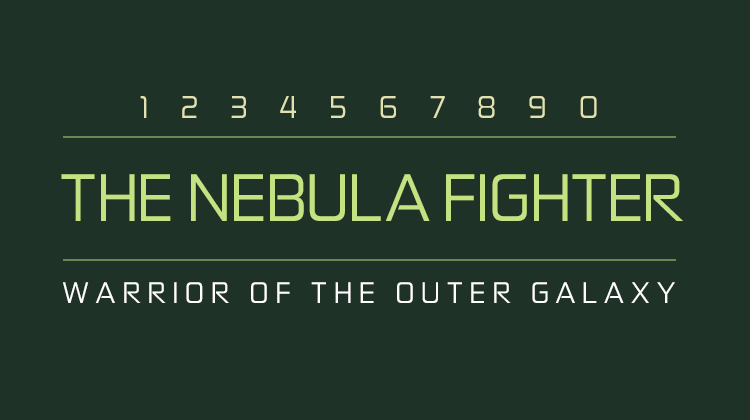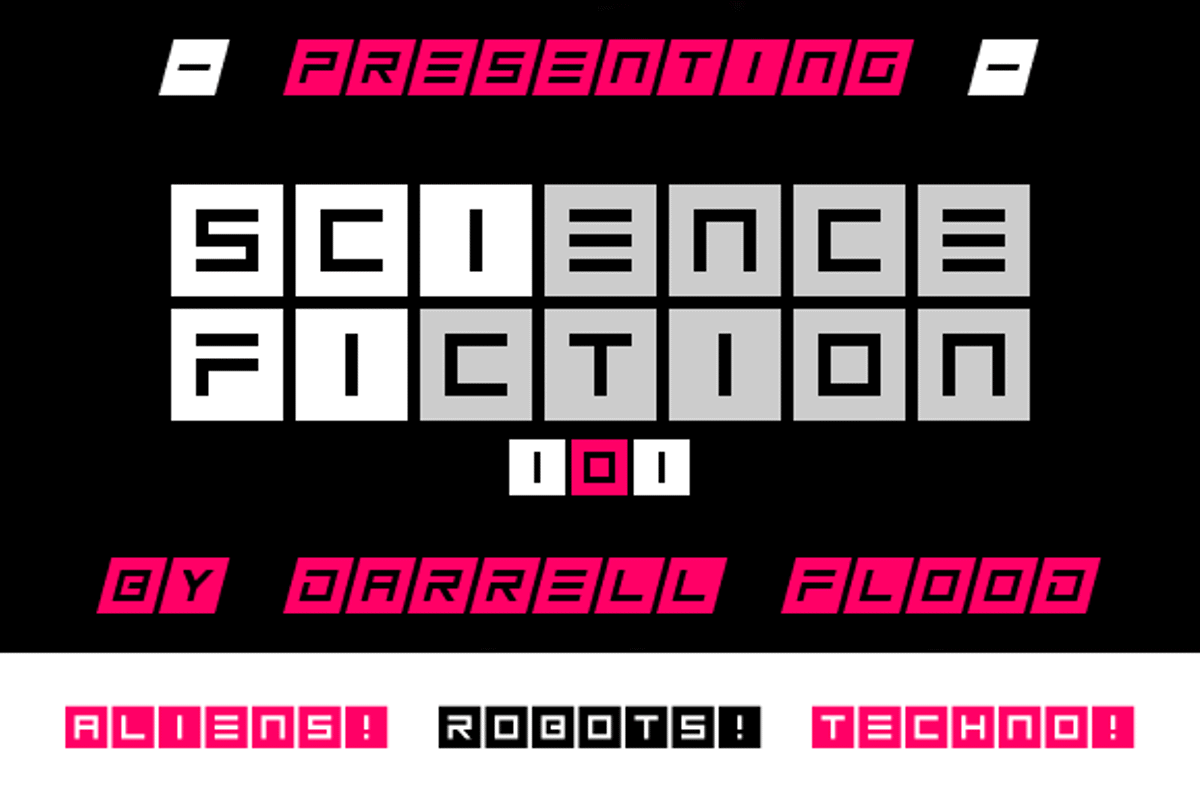
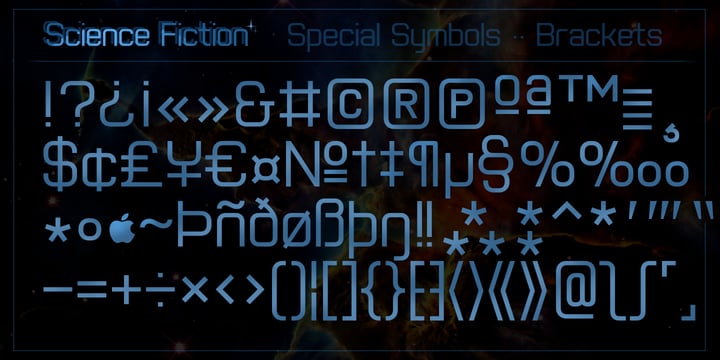
Best Sci-Fi Fonts A Galactic Guide
Best sci fi fonts – Best sci-fi fonts aren’t just about finding letters; they’re about evoking entire worlds. From the sleek, minimalist styles of futuristic utopias to the gritty, distressed looks of dystopian wastelands, the right font can instantly transport your reader to another galaxy. We’ll explore what makes a sci-fi font truly “best,” examining its readability, its ability to create a specific atmosphere, and its overall visual impact.
Get ready for a typographic journey through space and time!
This post dives deep into the world of sci-fi typography, exploring different font categories, their historical influences, and how they’re used in film, video games, and book covers. We’ll even design a conceptual sci-fi font and speculate on the future of this exciting field. Buckle up, font fanatics – it’s going to be a wild ride!
Defining “Best” in Sci-Fi Fonts
Choosing the “best” sci-fi font is subjective, depending heavily on the specific project and desired aesthetic. However, several key criteria can help us evaluate and compare different font choices for science fiction applications. A successful sci-fi font needs to effectively communicate a sense of the future, technology, and the overall tone of the story or project it’s used for.
Criteria for Evaluating Sci-Fi Font Aesthetics
Several factors contribute to a font’s effectiveness in a sci-fi context. Readability remains paramount; even the most futuristic font is useless if it’s difficult to decipher. Beyond readability, a successful sci-fi font should evoke a futuristic feel, conveying a sense of technological advancement and otherworldly environments. The font’s visual impact is crucial; it should be memorable and contribute to the overall atmosphere.
Finally, the font should align with the specific genre conventions and themes of the sci-fi work.
Comparison of Sci-Fi Font Styles
The following table compares three common sci-fi font styles based on the criteria established above. These examples are not exhaustive, but they represent some popular and influential choices.
After all, the right font can make or break the overall aesthetic.
| Font Style | Readability | Futuristic Feel | Technological Impression | Visual Impact |
|---|---|---|---|---|
| Space Mono | High; clean lines and consistent spacing. | Moderate; clean, modern, but not overtly stylized. | High; often used in coding contexts, suggesting a technological feel. | Moderate; clean and functional rather than overtly dramatic. |
| Orbitron | Moderate; rounded forms can be less legible at smaller sizes. | High; geometric shapes and rounded forms evoke a retro-futuristic style. | High; its geometric style suggests advanced technology. | High; bold and distinctive, making a strong visual statement. |
| Anton | Low; very thick strokes and lack of fine details reduce readability, especially in smaller sizes. | High; bold and aggressive, suggesting power and strength. | Moderate; its weight suggests robustness rather than intricate technology. | High; extremely bold and memorable. |
Cultural and Historical Influences on Sci-Fi Font Design
Sci-fi font design isn’t solely about aesthetics; it’s deeply intertwined with cultural and historical trends. For instance, the rise of geometric sans-serif fonts in the mid-20th century mirrored the optimism and technological advancements of the post-war era, often appearing in futuristic illustrations and film titles. These fonts, with their clean lines and precise forms, represented a vision of a streamlined, technologically advanced future.
In contrast, more stylized and heavily embellished fonts might reflect a dystopian or cyberpunk aesthetic, conveying a sense of decay, chaos, or corporate control. The evolution of technology itself has also played a significant role, with digital fonts offering possibilities not available in earlier typographic eras. The development of digital technology has enabled the creation of fonts with intricate details and complex designs that would have been extremely difficult, if not impossible, to achieve with traditional methods.
This technological evolution is reflected in the increasing complexity and variety of sci-fi font styles available today.
Categorizing Sci-Fi Font Styles
Picking the perfect font for your sci-fi project can be tricky. It’s more than just choosing something thatlooks* futuristic; the right font significantly impacts readability and sets the overall tone of your work, whether it’s a book cover, a movie title, or a video game interface. Understanding different font categories helps you make informed decisions.Sci-fi fonts aren’t a monolithic group; they fall into distinct styles, each with its own strengths and weaknesses.
Where can I find free sci-fi fonts?
Websites like Google Fonts and DaFont offer a selection of free sci-fi fonts, but always check the license before using them commercially.
How important is kerning in sci-fi font design?
Kerning (adjusting the space between individual letter pairs) is crucial for readability and visual appeal, especially in sci-fi fonts with unique letterforms.